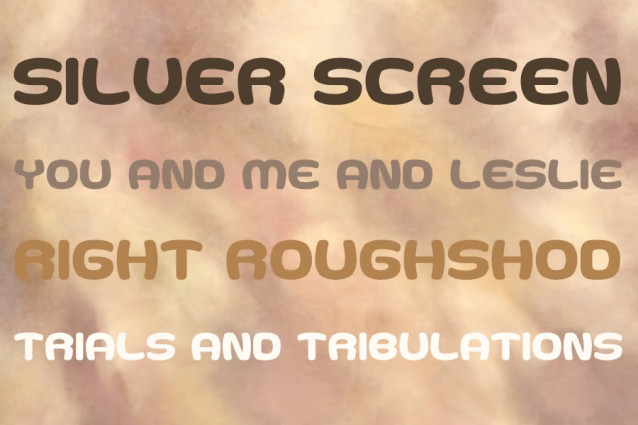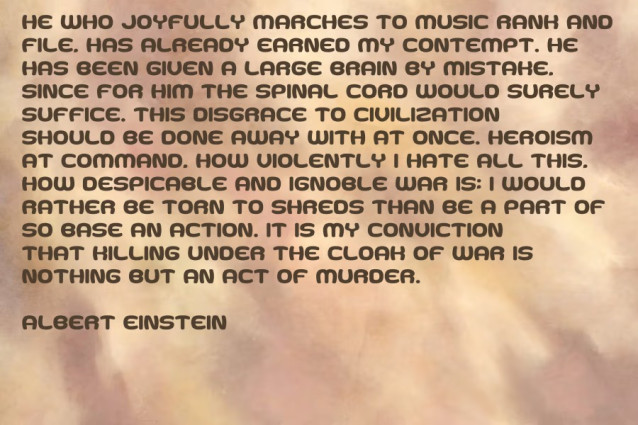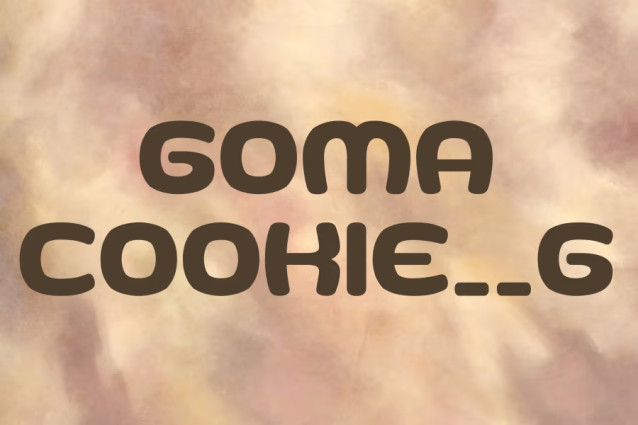
Goma Cookie__G Font
Goma Cookie__G Font a fun, bubbly energy that instantly feels sweet and approachable. The rounded, oversized letterforms look like they’ve been piped from icing, with generous curves and soft edges that create a sense of warmth. The font has a cheerful rhythm that makes words bounce lightly across the page.
While playful in tone, the design is carefully considered. Each character features consistent stroke widths, smooth terminals and open counters, which helps maintain clarity even in smaller sizes. Its uniform proportions and generous spacing give the typeface a lively but steady cadence, while subtle quirks in the shapes add personality without compromising legibility.
Thanks to its charm and versatility, Goma Cookie__G is well suited for anything that needs a touch of joy. Use it for confectionery packaging, children’s books, playful logos, party invitations or eye‑catching headlines in posters and social media graphics. Whether in print or on screen, it will bring a friendly, homemade feel to your projects.